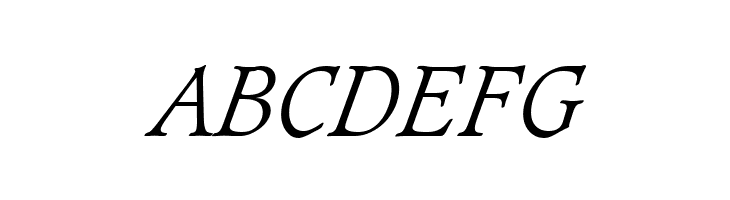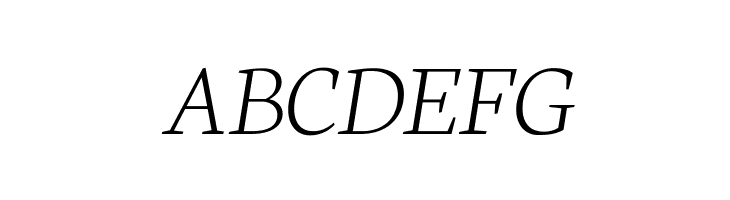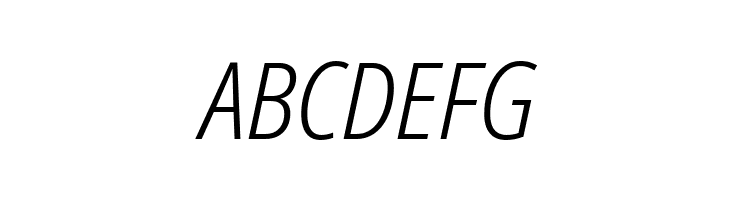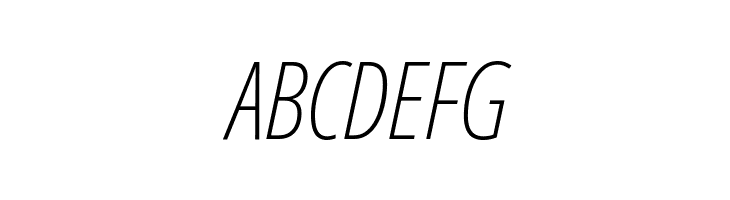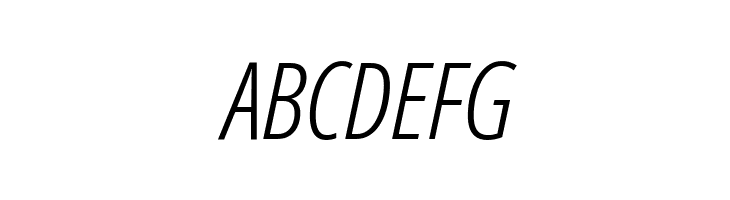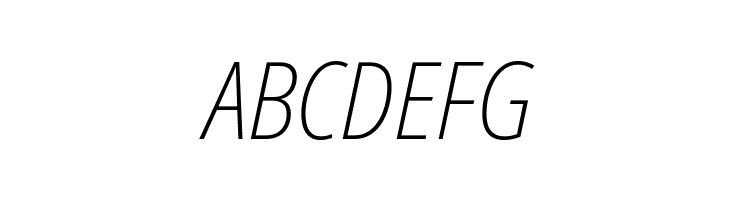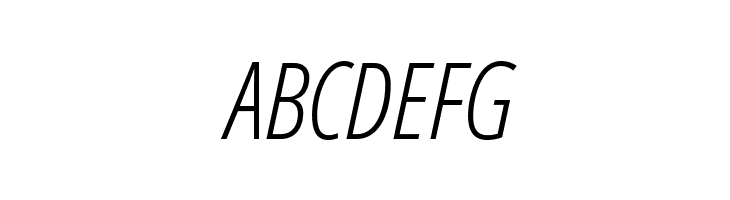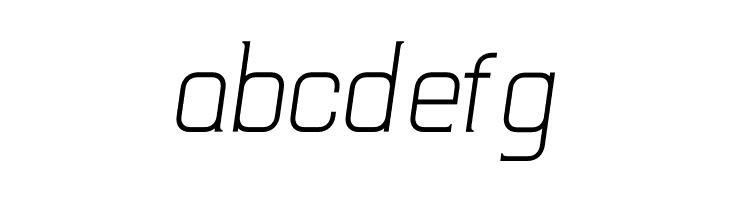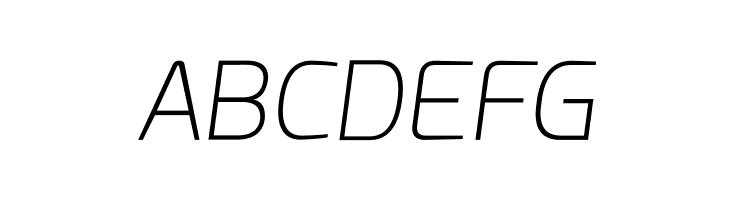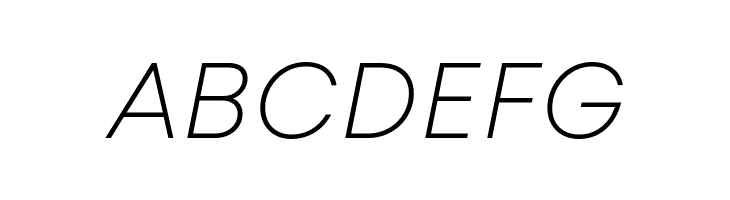
A sleek, modern, light italic font with smooth, consistent strokes.
A modern, italic sans-serif font with a sleek and dynamic style.
A modern, italic font with sharp angles and a dynamic style.
A sleek, modern italic font with sharp angles and an extra light weight.
A sleek, modern, and italicized font with an extra light weight and geometric design.
A sleek, modern, and slightly italicized font with thin strokes and balanced spacing.
A sleek, modern, and elegant light italic font with clean lines and balanced spacing.
A light, elegant serif italic font with smooth curves and refined letterforms.
A refined, elegant serif font with a light, italic style.
A modern, elegant serif font with a light, italicized style.
A sleek, semi-condensed, extra light italic font with a modern and elegant style.
A modern, condensed, light italic sans-serif font with a clean and elegant design.
A modern, semi-condensed, light italic font with clean lines and balanced spacing.
A modern, light, and italic sans-serif font with a sleek design.
A modern, extra light, extra condensed sans-serif with italic style.
A sleek, extra condensed sans-serif font with a light, italic style.
A modern, light, italic sans-serif font with sleek and fluid design.
A modern, condensed sans-serif font with an extra light weight and italic style.
A modern, condensed, light italic typeface with tight spacing and low contrast.
A light, italicized font with a modern and clean design.
Ultra-condensed, light, and italic with a modern, elegant style.
A light, elegant italic font with thin, elongated characters and generous spacing.
A sleek, modern, light italic font with medium contrast and condensed spacing.
A sleek, modern sans-serif font with an extra-light weight and subtle italic slant.
A sleek, extra light italic font with a modern and elegant design.
A sleek, modern, light italic font with clean, streamlined letterforms.
A modern, light, and italic sans-serif font with sleek lines.
A sleek, modern italic font with smooth curves and sharp edges.
A sleek, modern font with a futuristic and dynamic italic style.
A modern, italicized font with a futuristic and geometric design.
A sleek, modern italic font with geometric precision and a futuristic aesthetic.
A modern, light, and italic sans-serif font with a sleek and dynamic design.
A sleek, modern sans-serif font with extra-light weight and italic style.